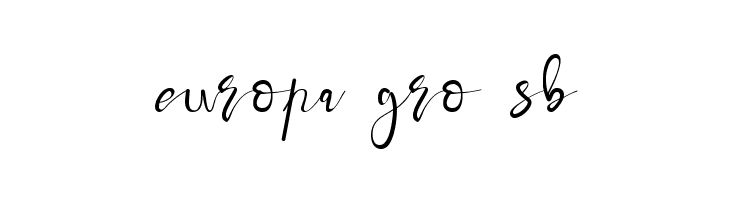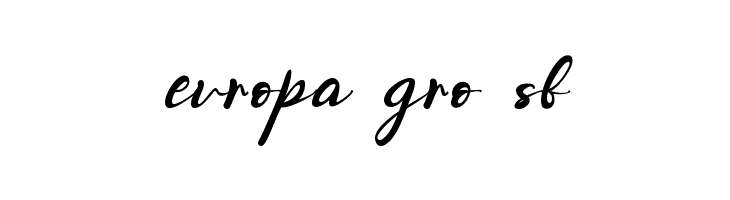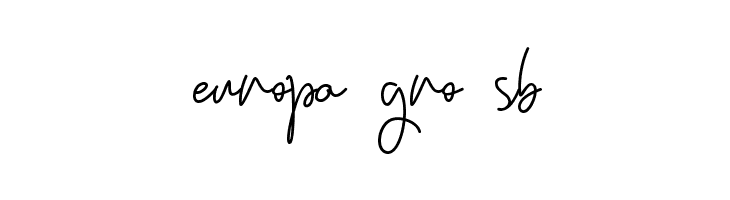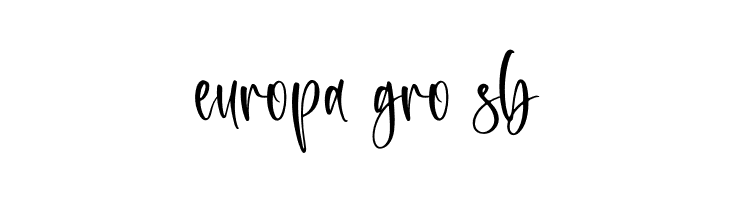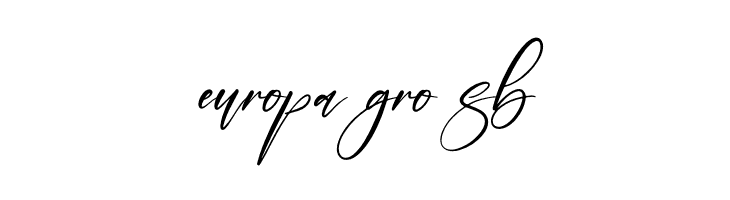
An elegant script font with intricate loops and modern calligraphic style.
An elegant, cursive font with flowing curves and ornate flourishes.
An elegant, flowing script font with graceful curves and continuous strokes.
A flowing, cursive font with elegant and artistic flair.
An elegant script font with intricate swashes and flowing letterforms.
A dynamic and expressive handwritten font with fluid, energetic strokes.
A lively and expressive handwritten font with a modern, artistic flair.
A bold, brush-style italic font with dynamic, hand-painted strokes.
A flowing, cursive script font with elegant, connected letters and moderate stroke thickness.
An elegant, flowing script font with graceful curves and artistic flair.